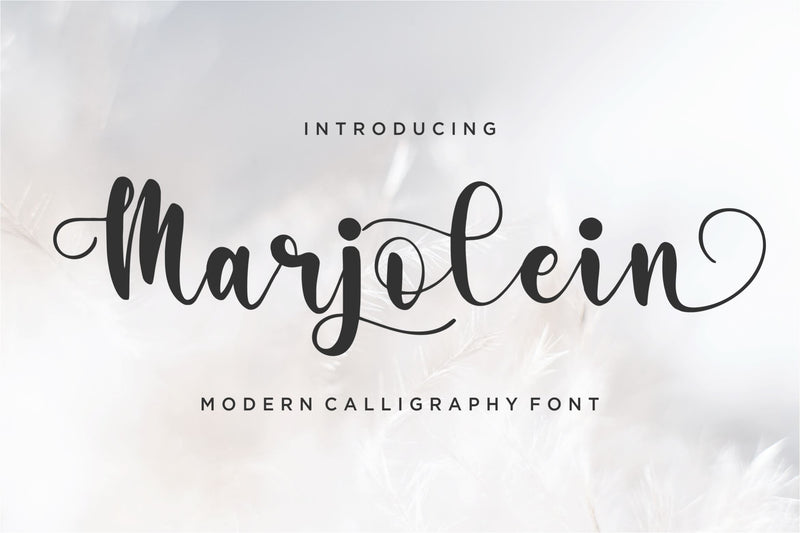
Marjolein
Introducing by Qwrtype
Proudly Present, Marjolein
Marjolein a Modern Calligraphy Font
Marjolein is perfect for product packaging, branding project, megazine, social media, wedding, or just used to express words above the background.